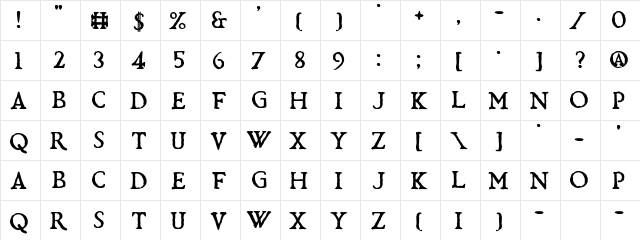
Bardolatry Regular Font Preview
Bardolatry Regular
Bardolatry Regular Font Details
| Designer | Allison James |
Design Context for Bardolatry Typeface
Bardolatry takes a measured approach to typography — its balanced proportions and neutral character make it a reliable workhorse for both digital and print work.